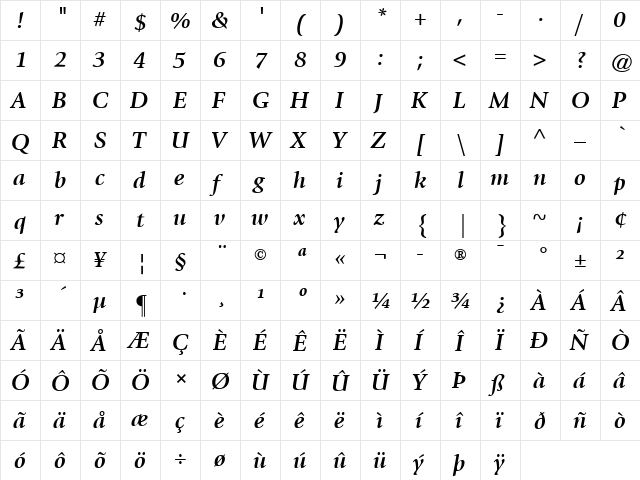
Giovanni LT Book Bold Italic Font Preview
Design Context for Giovanni LT Book Typeface
Giovanni LT Book takes a measured approach to typography — its balanced proportions and neutral character make it a reliable workhorse for both digital and print work. The dynamic lean of this cut emphasises speed and emphasis in any layout. The heavy weight commands attention and anchors typographic hierarchies.